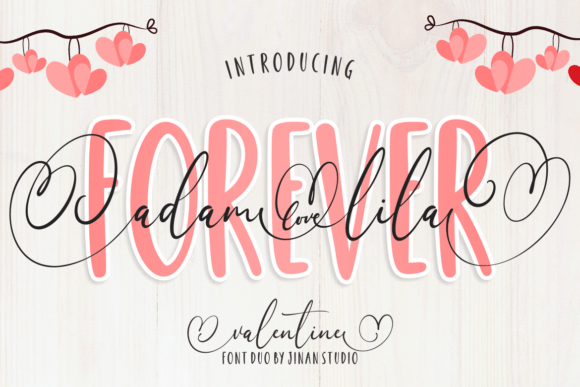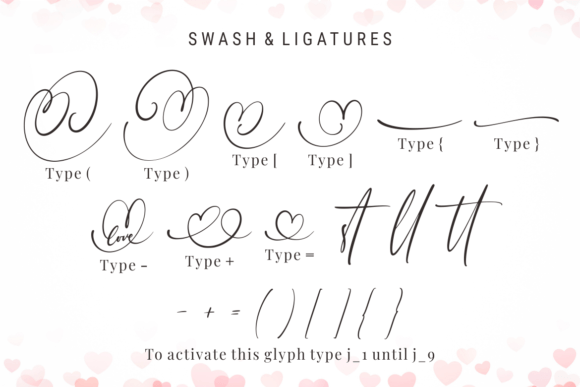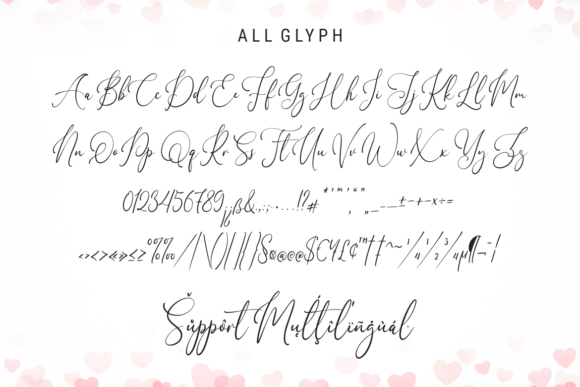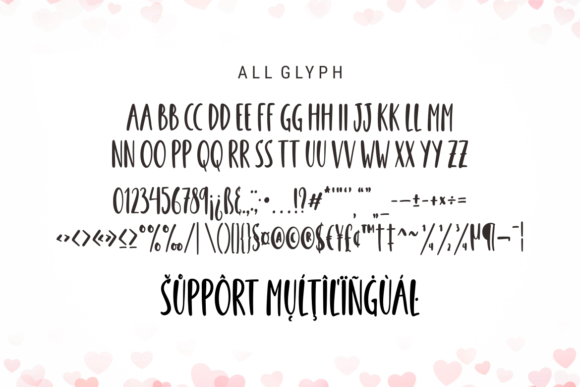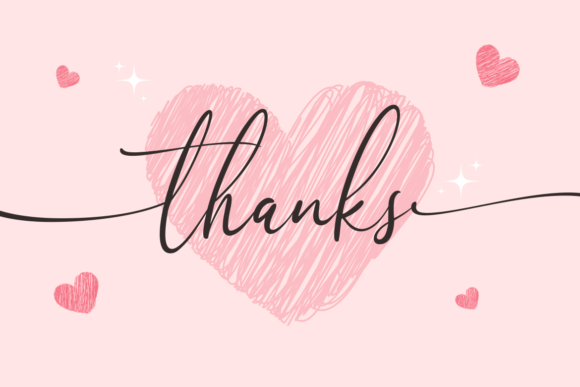
About Forever Adam Lila Duo
Forever Adam Lila is a stylish and delicate duo font (script and sans serif) suitable for a wide spectrum of applications. From greeting cards to headlines, this font will guarantee a romantic touch to each of your creations!